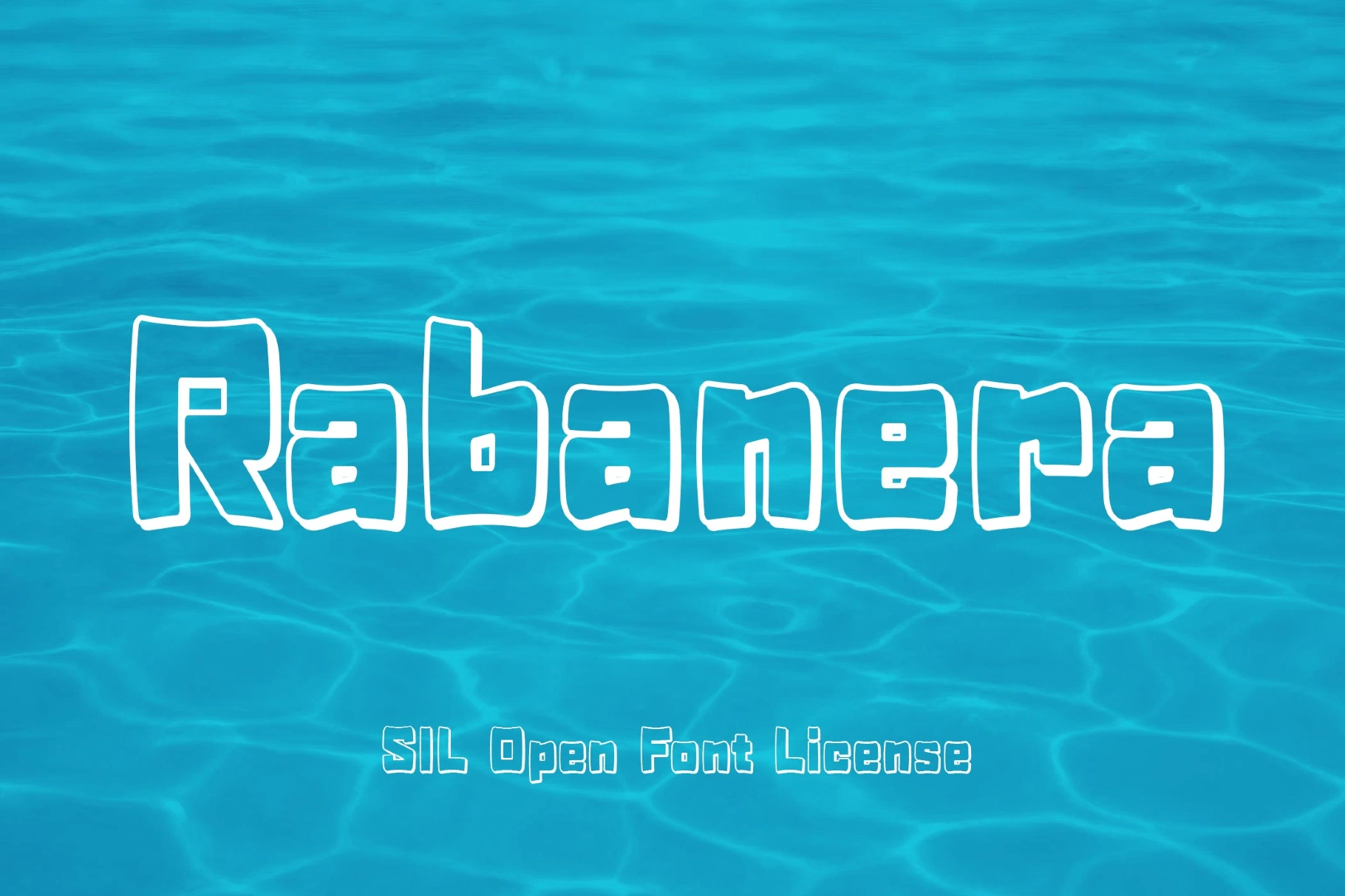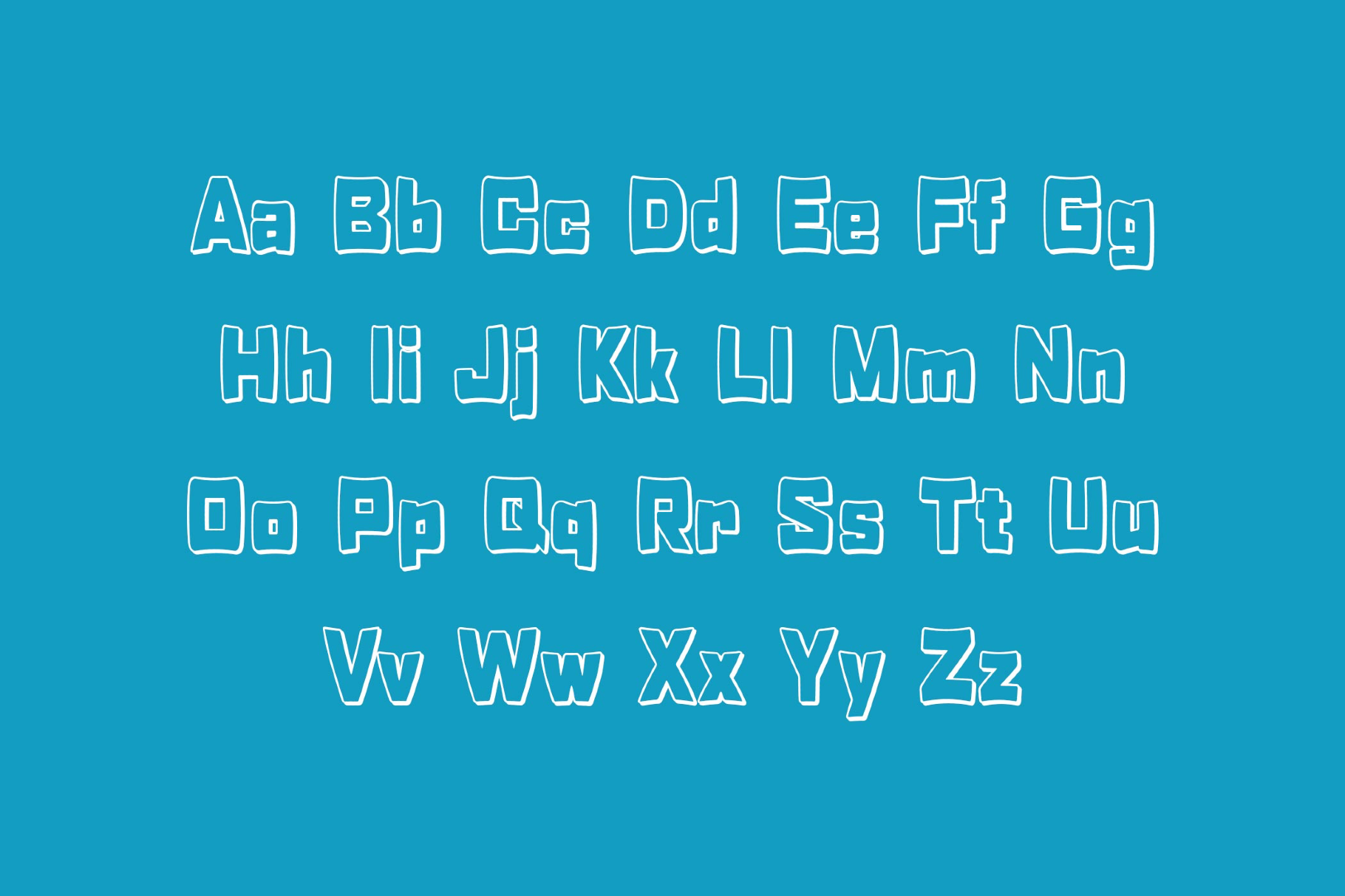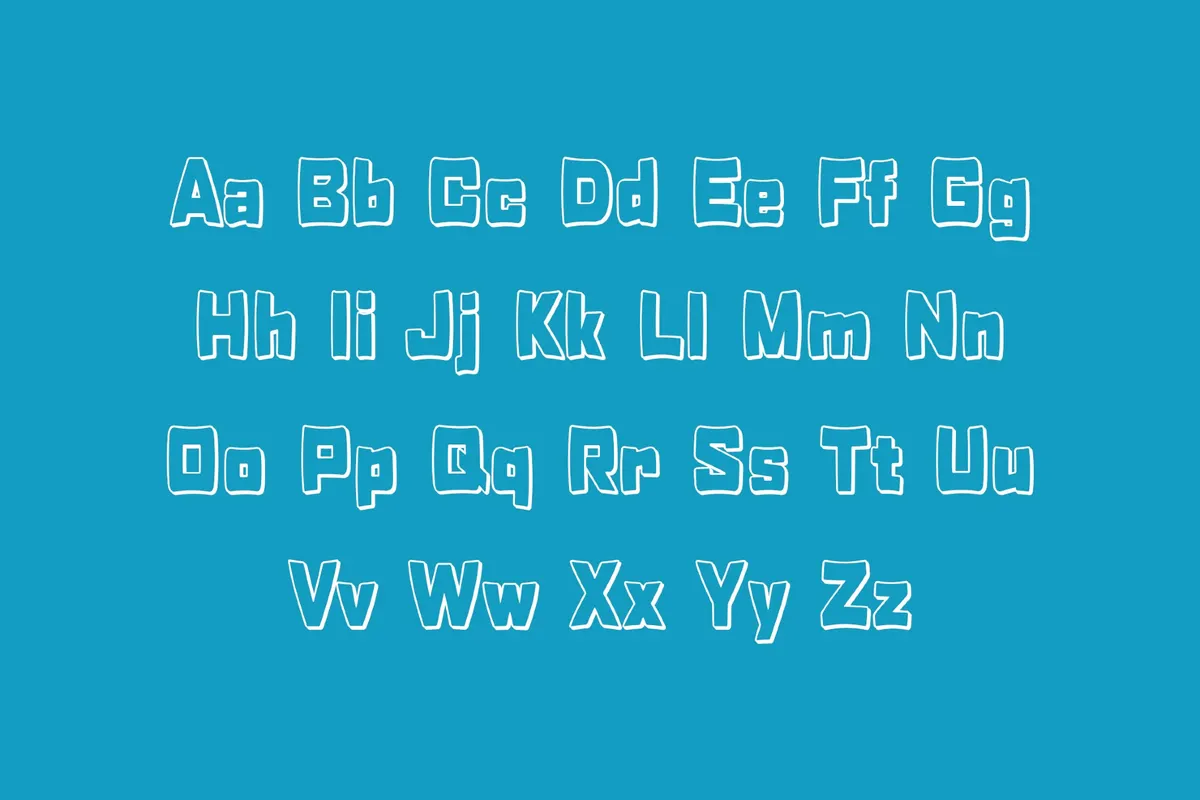
Rabanera Font
Rabanera is an outline summer display typeface with a playful shadowed silhouette that recalls hand-painted ice cream stands, 1960s beach postcards, and the bright lettering of summer fair posters with a cheerful retro pulse. This font suits poster headlines, gelato branding, festival graphics, café menus, packaging, postcard design, and social visuals that want a holiday-season accent.